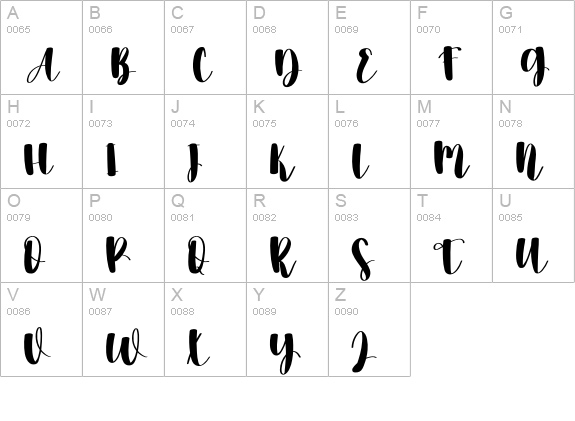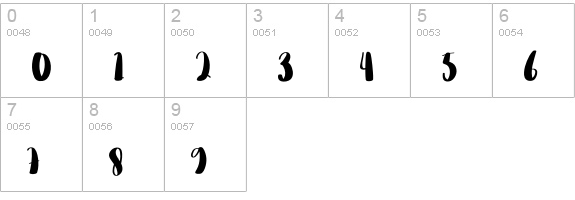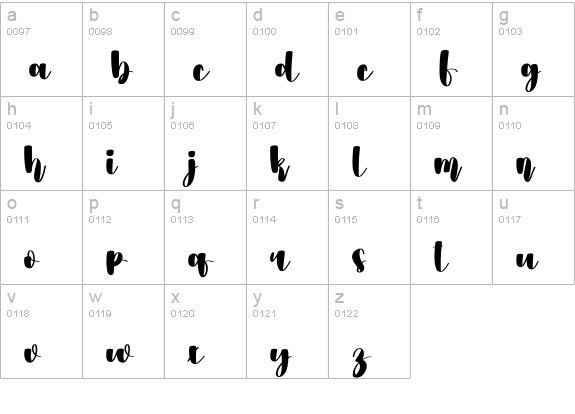
Farmhouse2 Font Details
Farmhouse2 is a free for personal use font in the Script > Handwritten category, designed by scratchones. It has been downloaded 2 times and is available for Windows, Mac and Linux.
Farmhouse2 font is a charming and rustic typeface that brings a touch of nostalgia to your projects. With its handcrafted look and vintage feel, Farmhouse2 is perfect for creating designs that evoke a sense of warmth and simplicity. This versatile font is ideal for a wide range of projects, from branding and packaging to invitations and social media graphics.